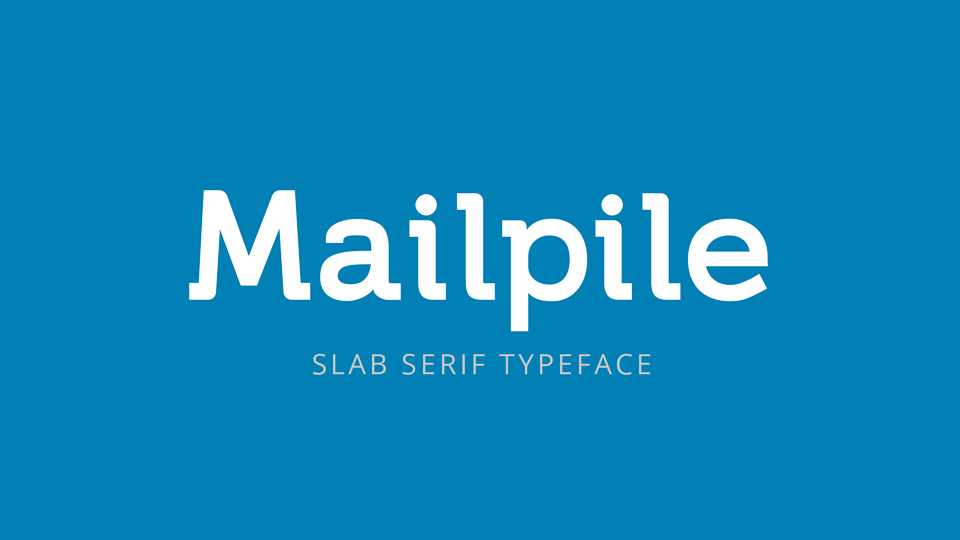
Download Mailpile typeface, a slab serif font family in 5 weights based on the awesome free font Fauna One made by Eduardo Rodríguez Tunni. Mailpile font created in collaboration with various font designers.